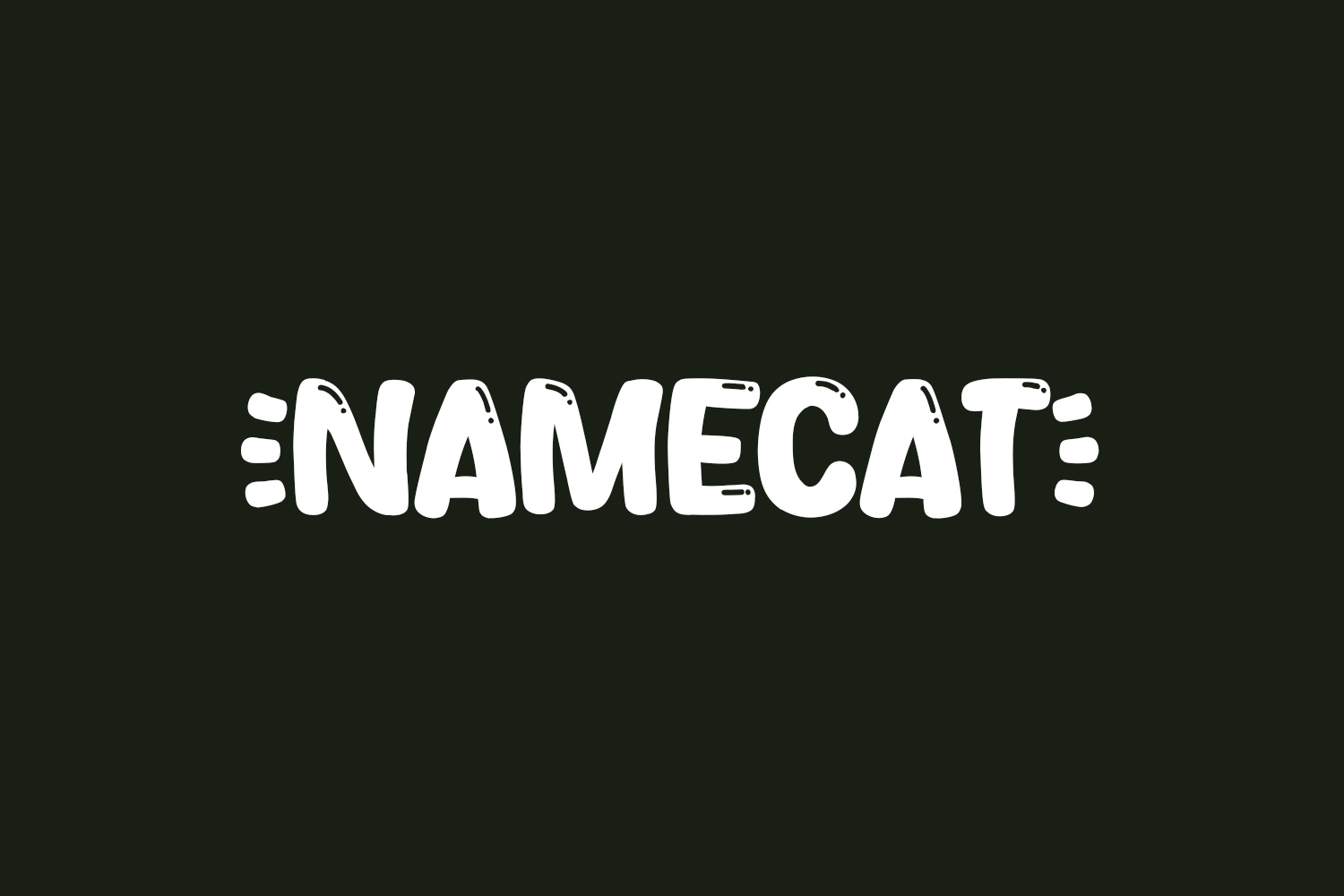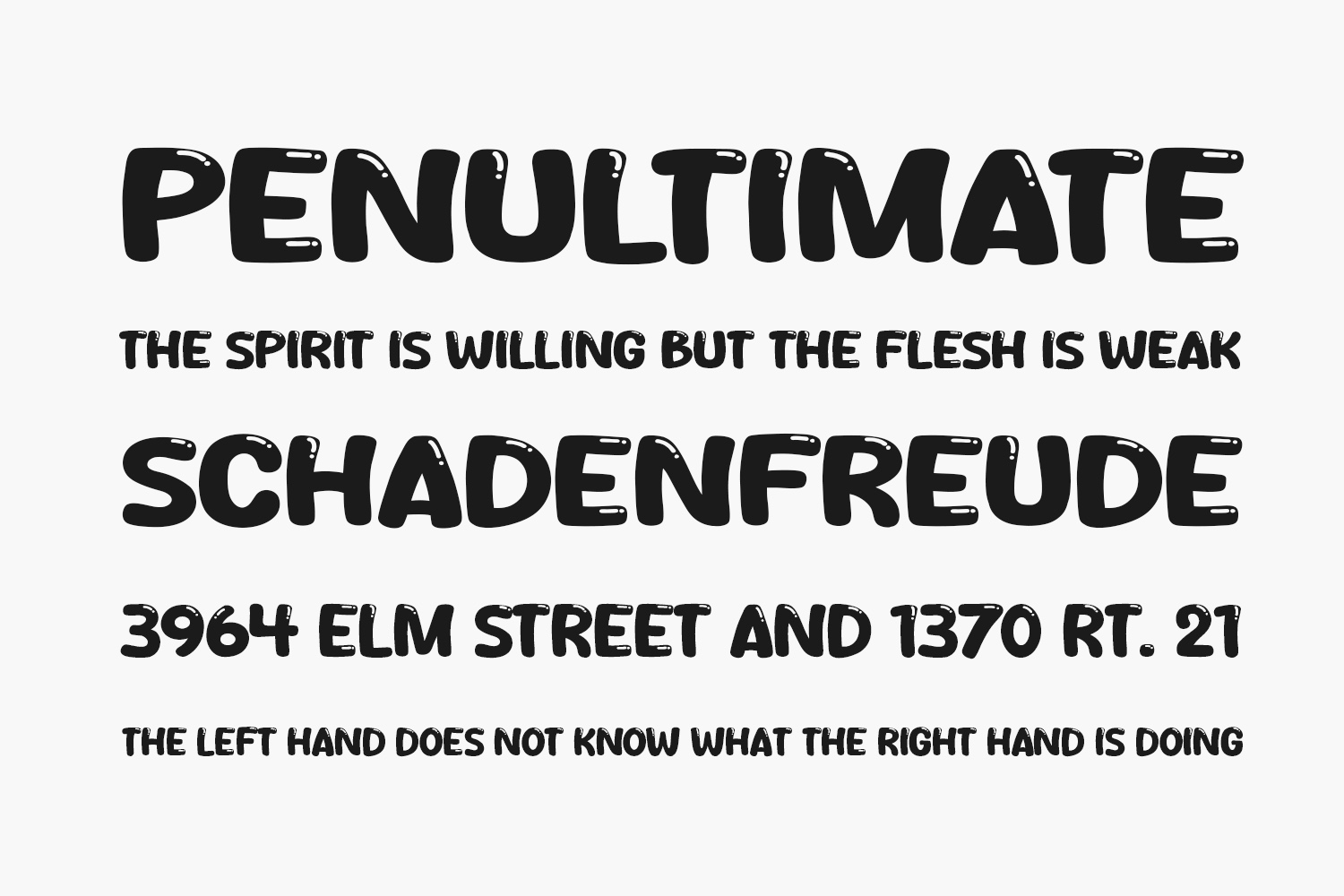
Discover Namecat Free Font, a contemporary and sophisticated display font that’s ideal for posters, logos, magazines, book covers, banners, and more! Elevate your designs with this incredible font, adding a touch of charm to your creative projects. Its versatility allows it to seamlessly complement a wide range of projects, making your creative ideas truly stand out. Grab Namecat now and experience the transformative impact it brings to your designs. Download the font for free if you need it for personal or commercial use.